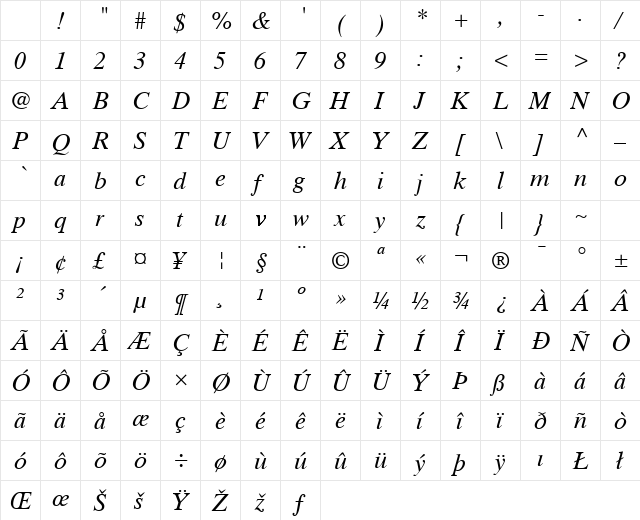
Complete Greco Ten SSi Italic glyph index. Displaying only characters natively supported by Greco Ten SSi Italic font.
Greco Ten SSi is a composed and adaptable typeface that performs quietly and consistently across a wide range of design contexts. The slanted form adds forward momentum and visual energy.
Pro Tip: Use Greco Ten SSi for emphasis, pull quotes, and subheadings where its slanted energy can add rhythm to the layout.